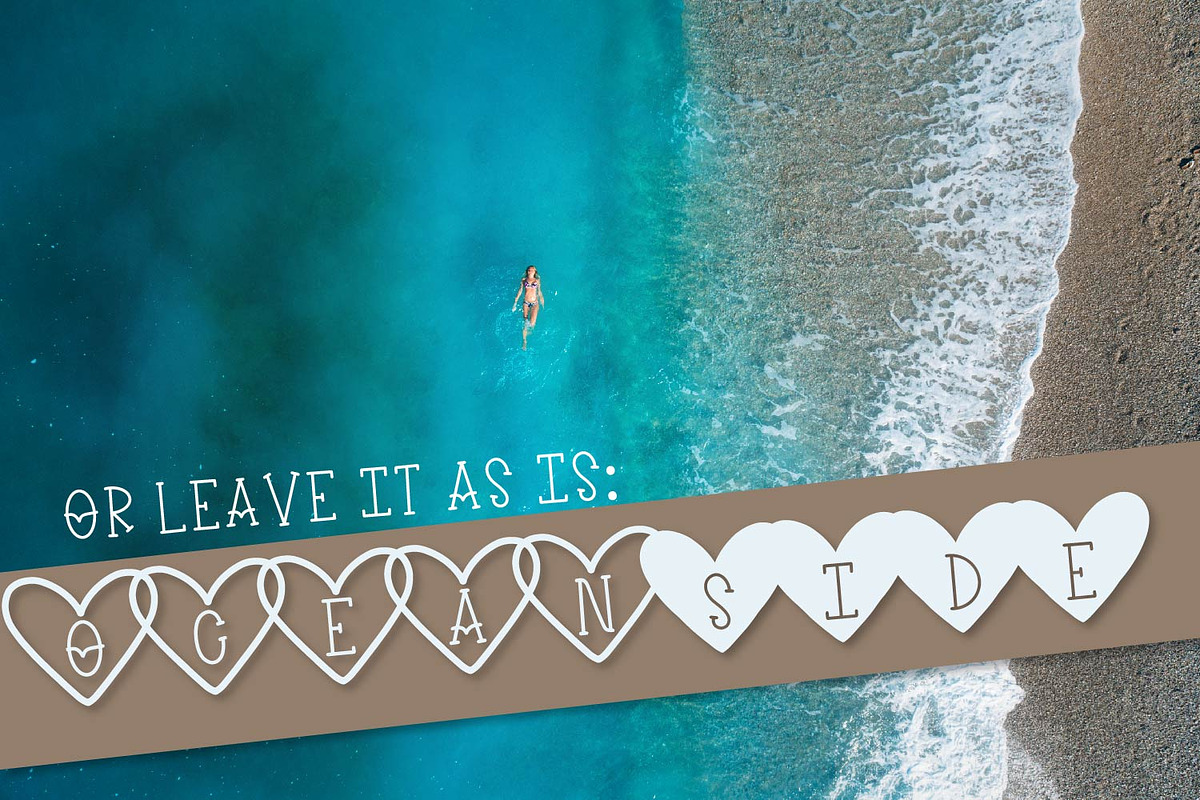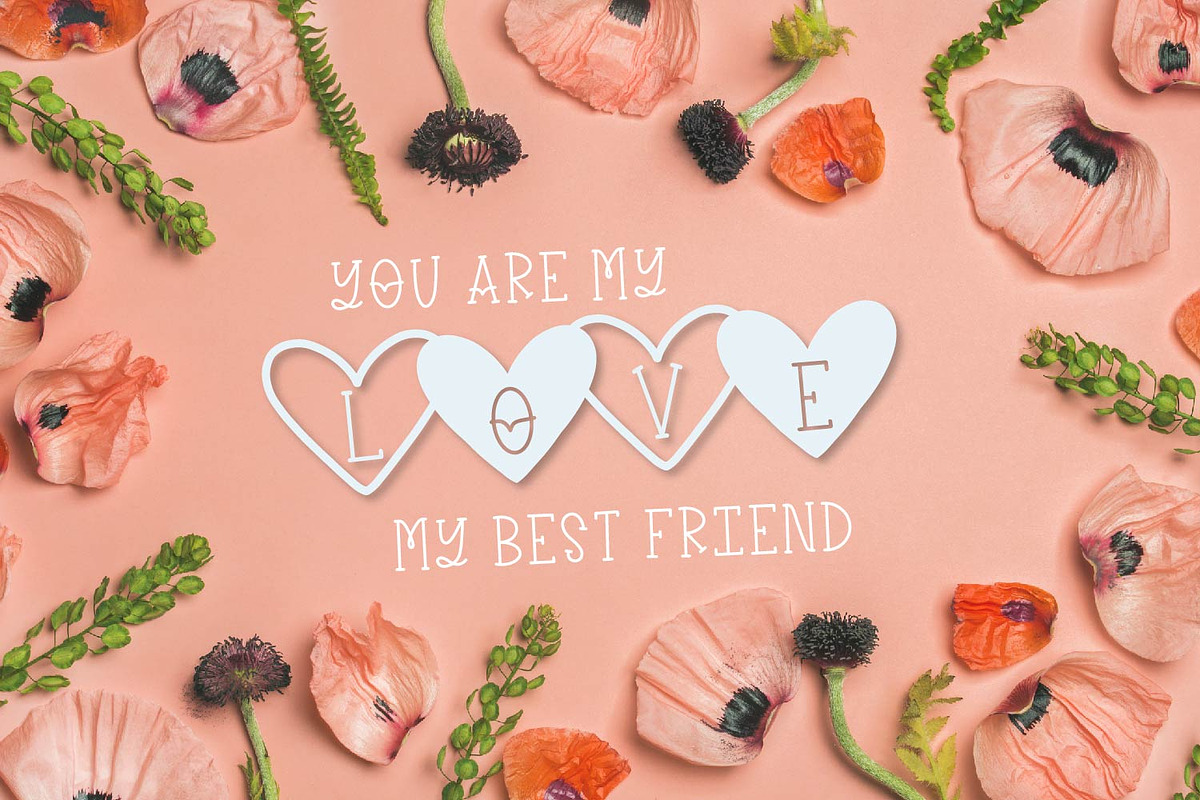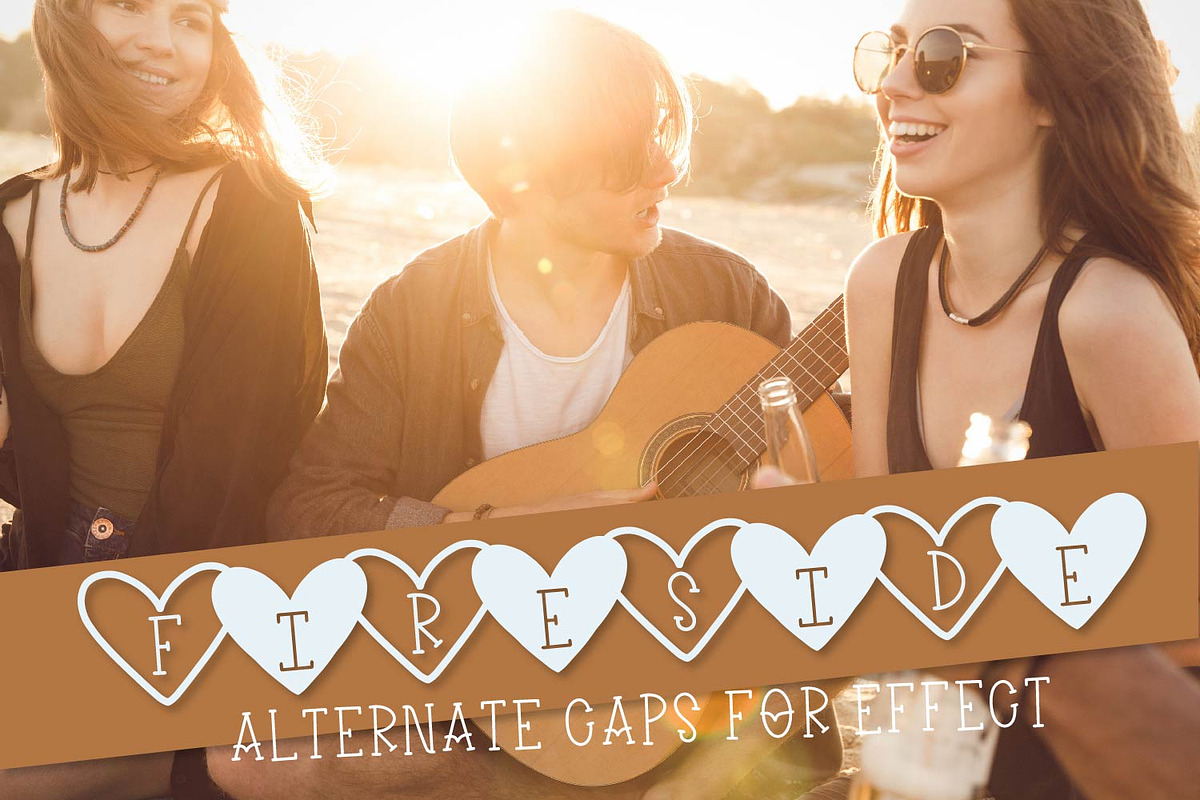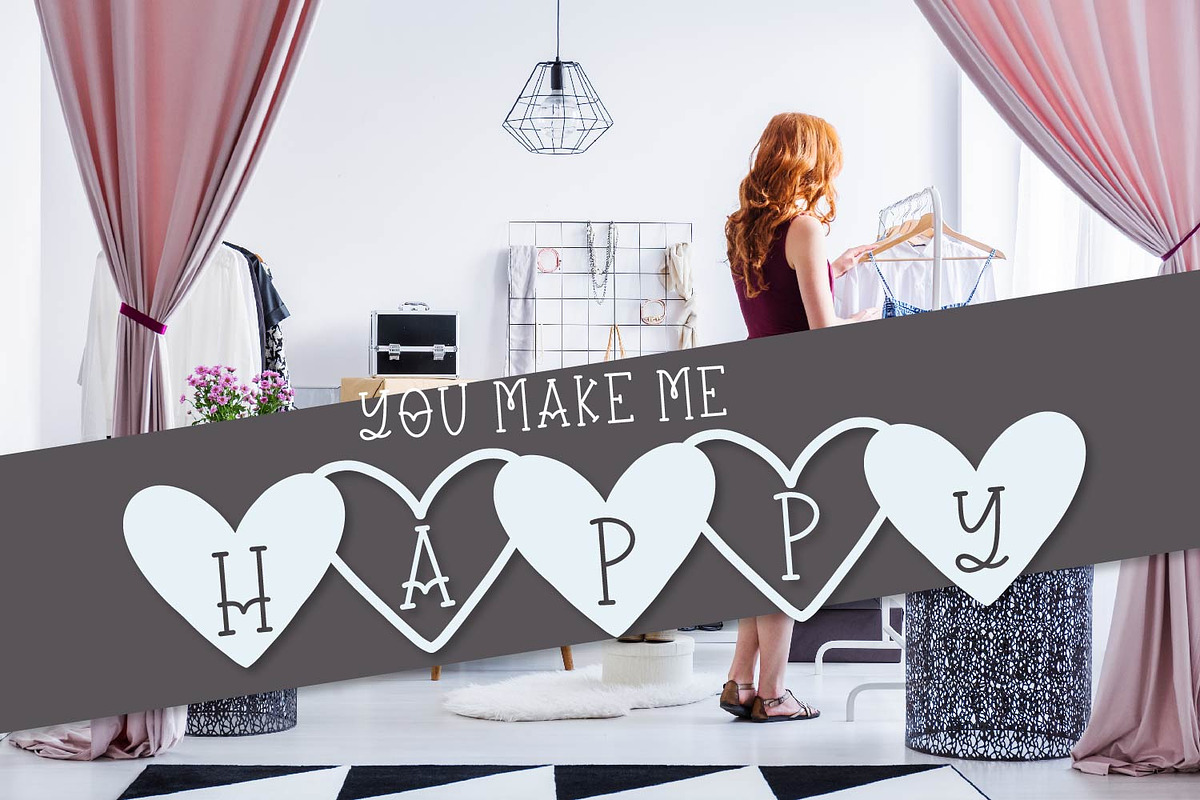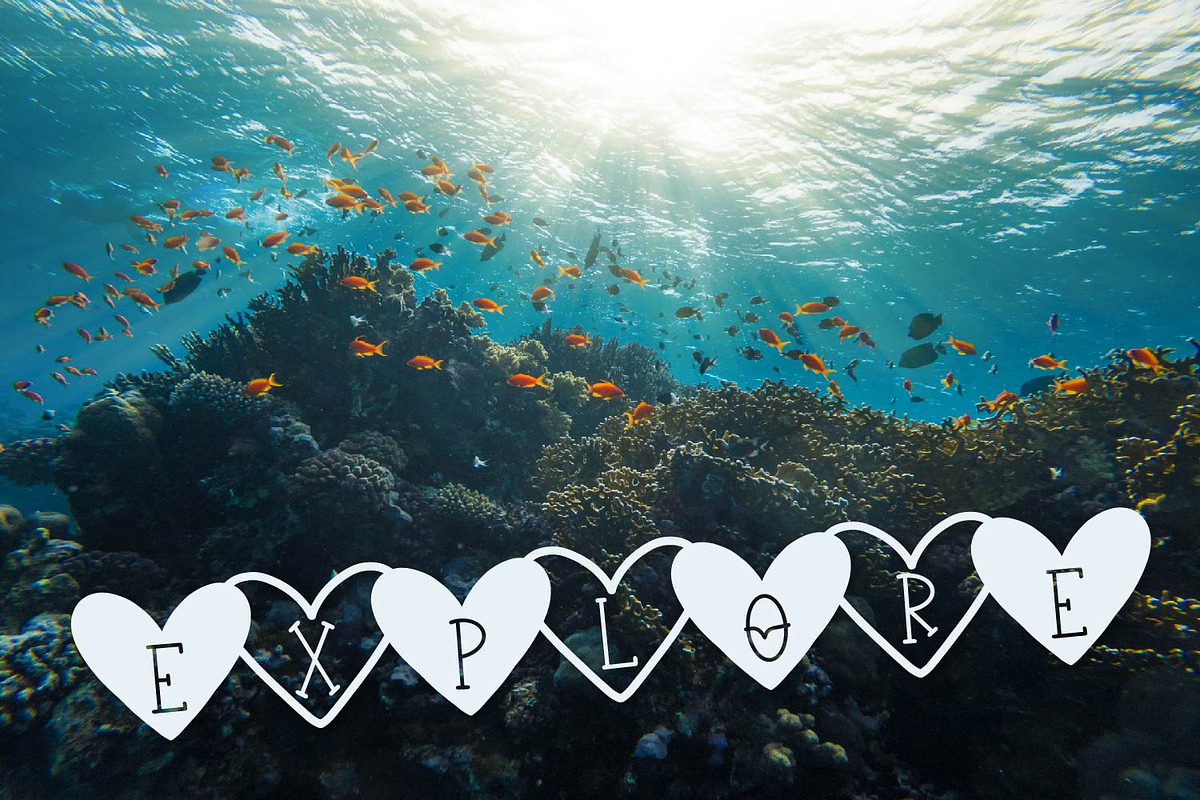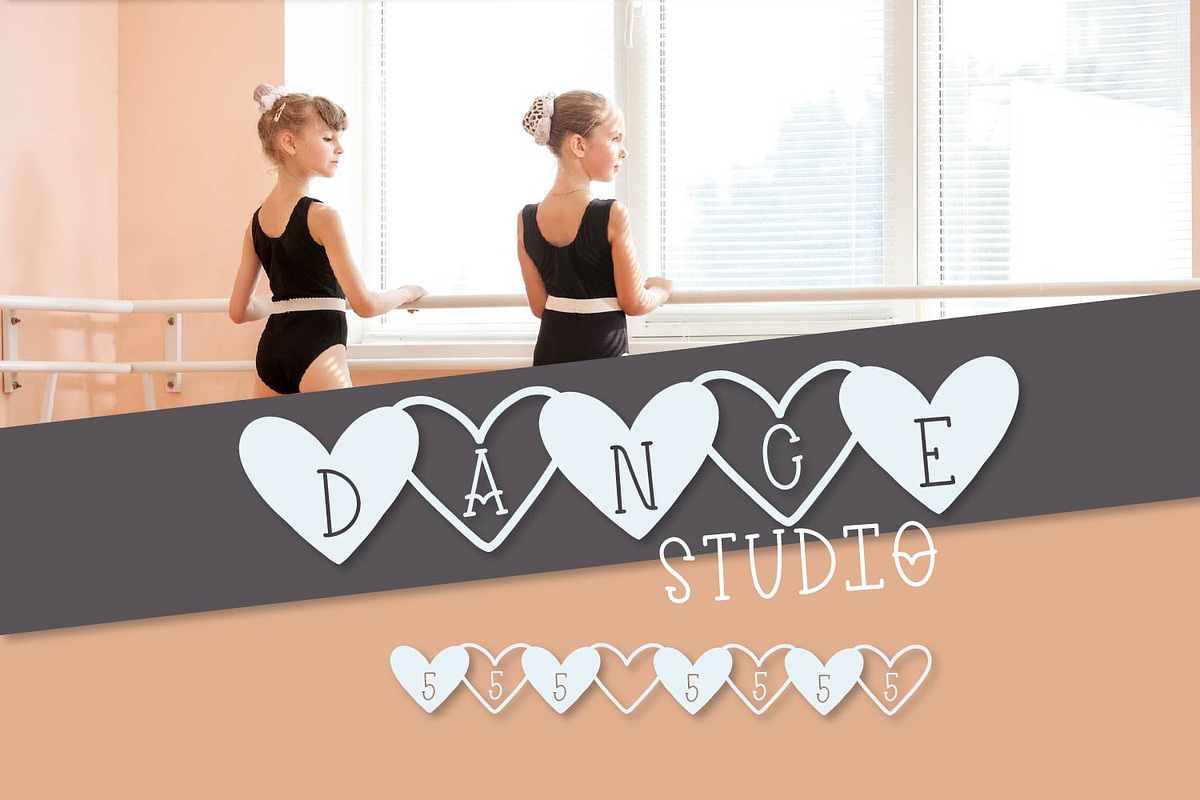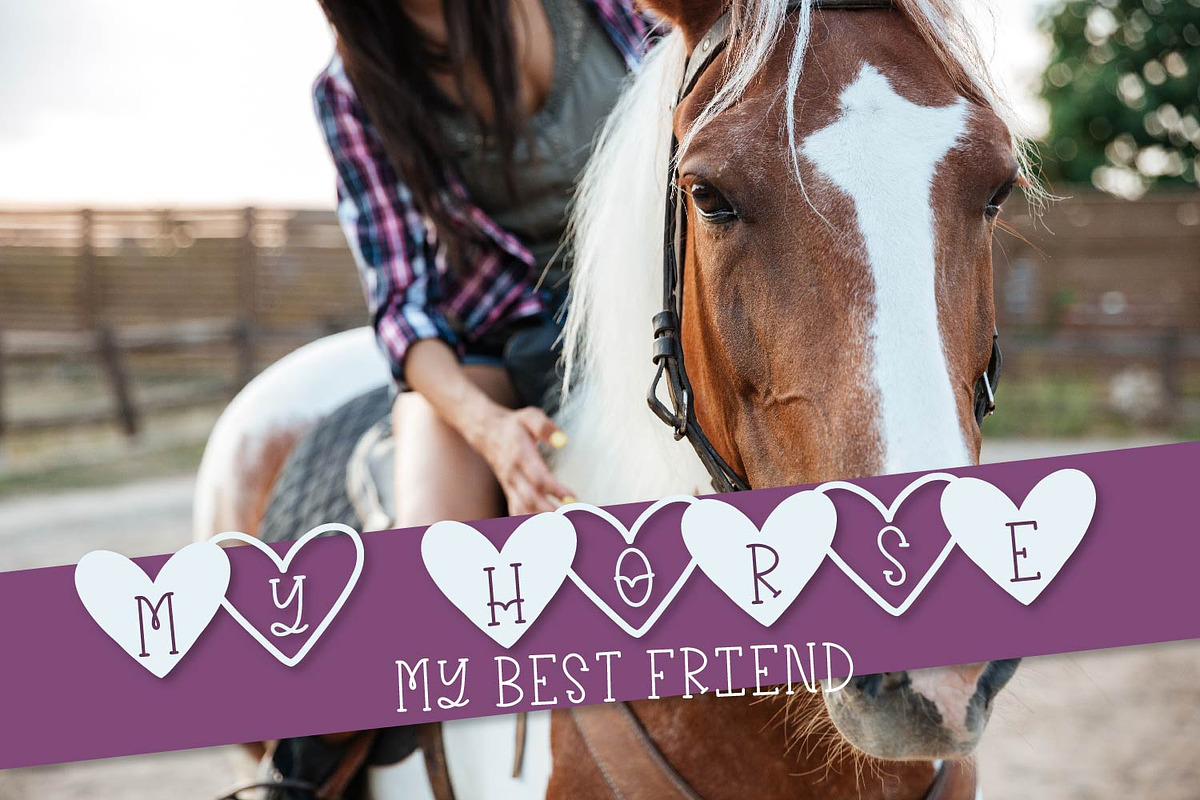
Kiary - A Handwritten Heart Font Duo
Kiary A Handwritten Heart Font Duo by CraftyLittleNodes is a font selected for branding, posters, packaging, typography.
Why Kiary - A Handwritten Heart Font Duo is worth a look
Kiary - A Handwritten Heart Font Duo by CraftyLittleNodes fits naturally into Branding, posters, packaging, typography.